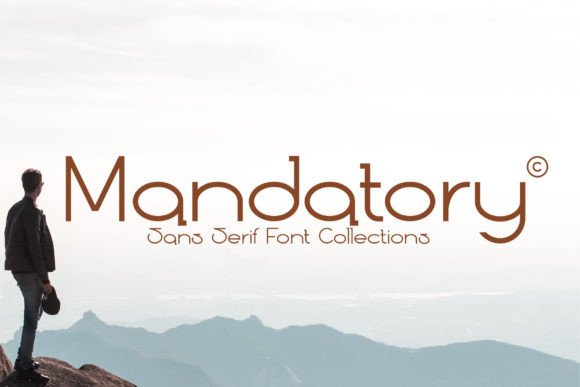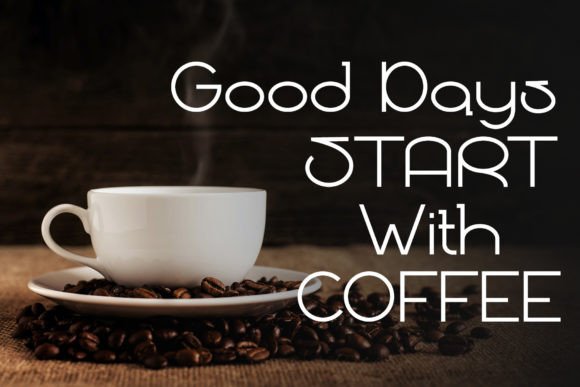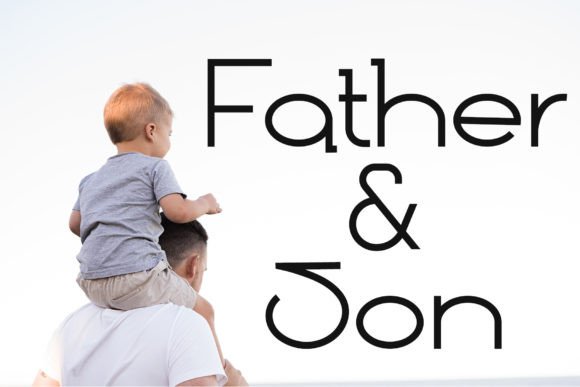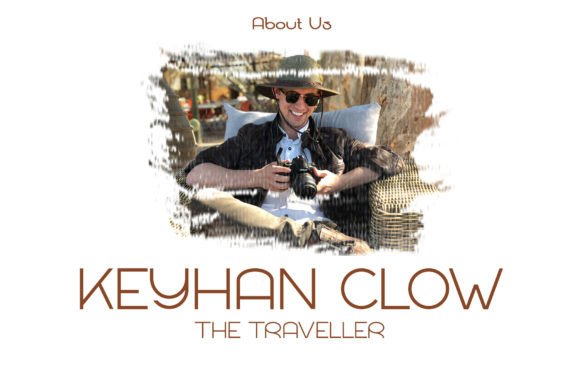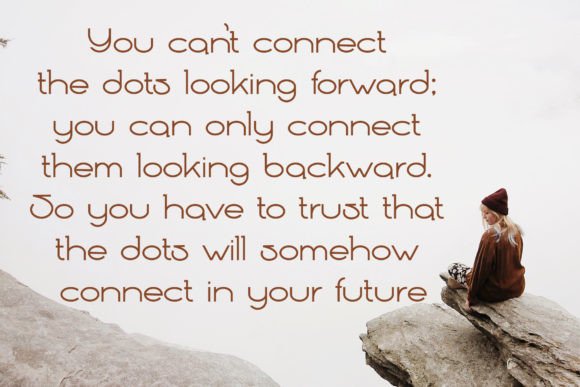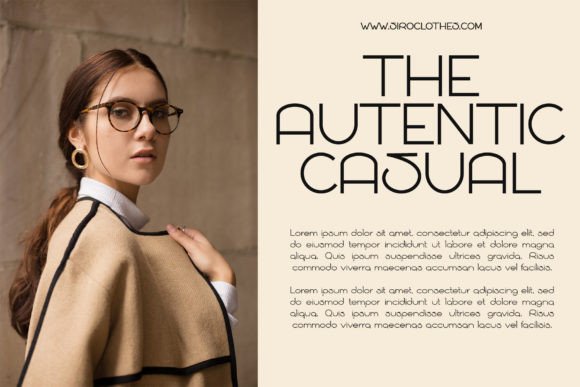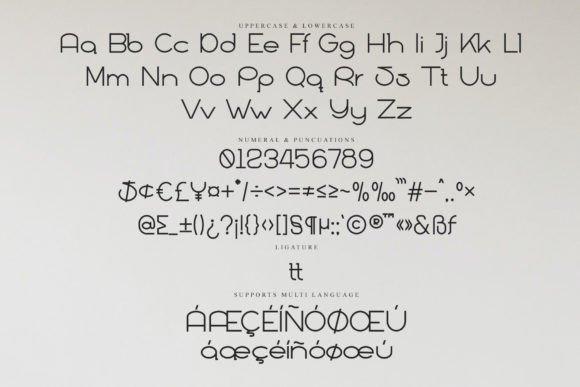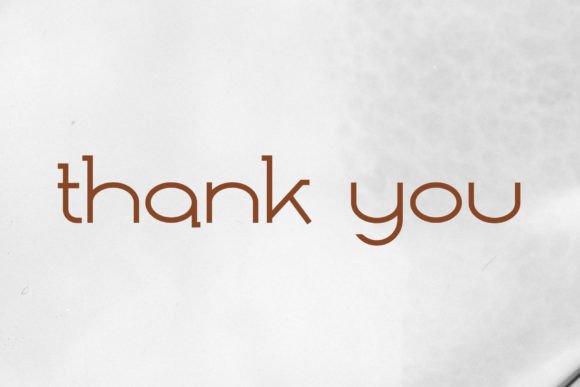
Mandatory
Mandatory: An Elegant and Versatile Slab Serif Font
Mandatory is an elegant and versatile slab serif font designed to create unique typography. This distinctive typeface brings enchanting style to various applications, from branding projects to magazine headers.
Key Features of Mandatory
• Elegant Design: Offers sophisticated and refined letterforms.
• Versatile Style: Adapts well to various design needs.
• Unique Character: Creates distinctive typographic impact.
• Stylish Appeal: Enhances visual presentation.
Best Uses for Mandatory
Thanks to its versatile characteristics, Mandatory works especially well for:
When using Mandatory in your designs, keep these tips in mind:
• Try it for headlines or display text to showcase its elegant style.
• Use it as a text overlay on background images.
• Let its versatility enhance branding projects.
• Take advantage of its unique character for distinctive designs.
To sum up, Mandatory is an excellent choice for designers seeking an elegant and versatile slab serif font. Its unique characteristics make it perfect for projects that need to stand out. Whether you’re creating brand identities, designing packaging, or developing magazine layouts, Mandatory offers the perfect blend of elegance and versatility.
Furthermore, Mandatory’s distinctive design allows it to shine in contexts where both style and functionality are key. For instance, from product packaging to magazine headers, this font can elevate your projects with its enchanting style. Also, its elegant yet readable appearance works particularly well in designs that aim to make a sophisticated impact.
In conclusion, Mandatory truly captures the essence of elegant typography. Its ability to enhance various applications shows how well it can serve creative needs. Therefore, for those wanting to add a touch of unique sophistication to their work, Mandatory can transform any design with its distinctive style. Ultimately, it’s perfect for designers aiming to make an elegant, memorable impact across creative projects.